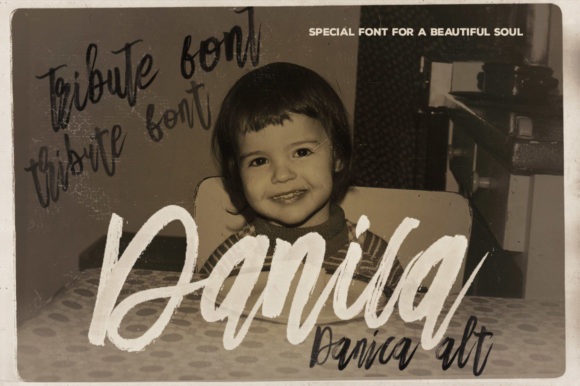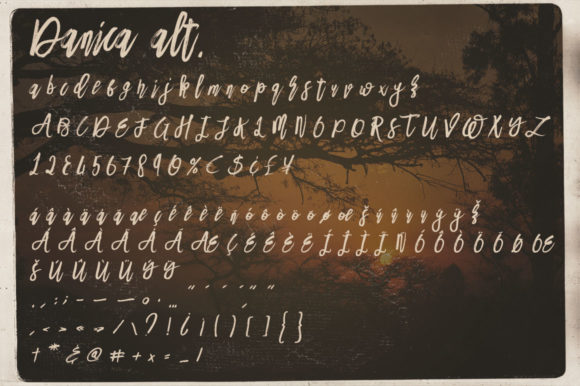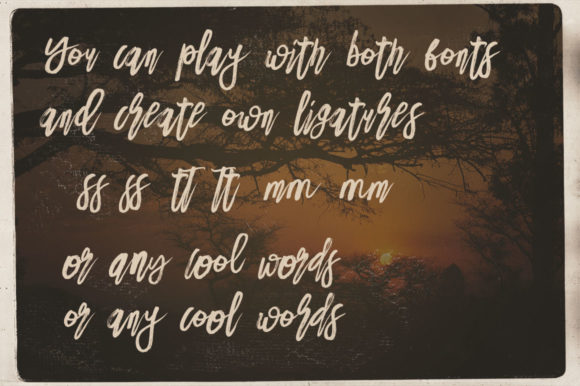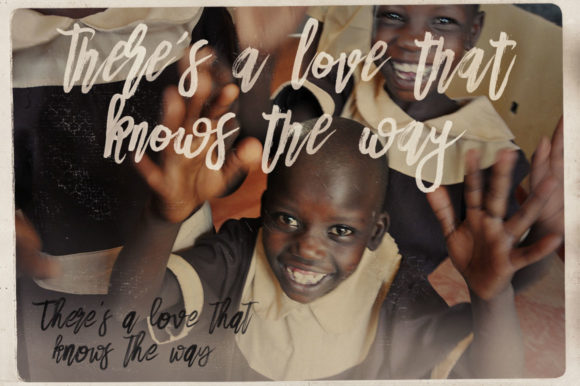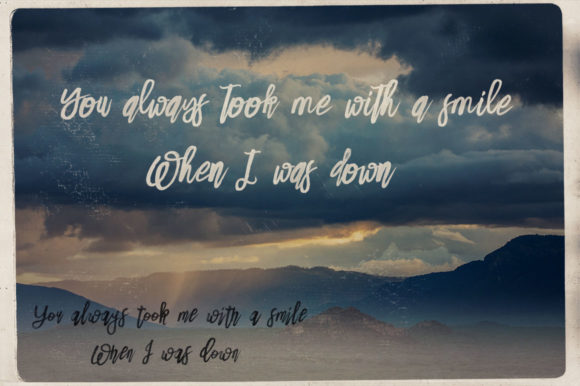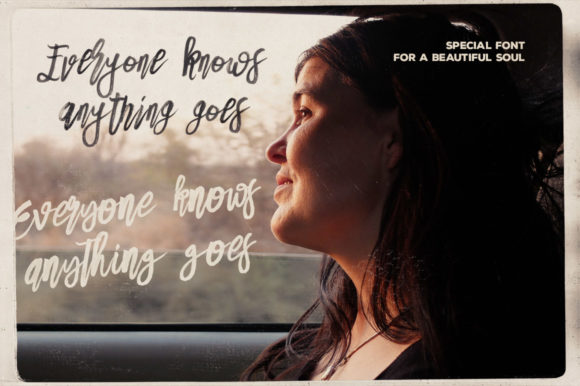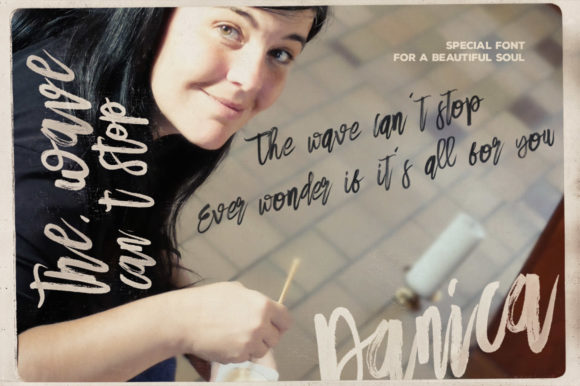
HomeScript FontsDanica Font Script Fonts Danica Font FacebookXPinterestWhatsApp Danica Font Poster 2 Danica Font Poster 3 Danica Font Poster 4 Danica Font Poster 5 Danica Font Poster 6 Danica Font Poster 7 Danica Font Poster 8 Danica Font Poster 9 Danica Font Poster 10 Danica Font Poster 11 Danica Font Poster 12 Danica Font Poster 13 Danica Font Poster 14 About Danica Font Danica is a abold and beautiful handwritten font with a cool feel. It will turn any design project into a standout! DOWNLOAD ON CREATIVE FABRICAThis font is sold and delivered by Creative Fabrica. Font Canyon may earn a commission if you buy through this link. People also explored Kid Dark Grey Heather Bella Canvas 3001T Sanggula Font Riponlight Font Chic Cat Font Park Twokey Month Font Herios Font Maudy Font Beatone Font Block Note Font 320 0 TagsDanica Font Previous articleAngelic FontNext articleBuongiorno Rastellino Font LEAVE A REPLY Cancel reply Comment: Please enter your comment! Name:* Please enter your name here Email:* You have entered an incorrect email address! Please enter your email address here Website: Save my name, email, and website in this browser for the next time I comment. Personal Use Free Zeshane Personal Use Free Read more about this font Krase Personal Use Free Read more about this font Braindly Personal Use Free Read more about this font Little Pixel Personal Use Free Read more about this font BLOG How to Install and Use Fonts on Windows, macOS, and Web Projects How to Install and Use Fonts on Windows, macOS, and Web Projects Fonts are a crucial part of design and branding. Whether you’re designing a... Fonts That Capture the Spirit of New York City Top 7 Google Fonts Alternatives for Faster and Privacy-Friendly Web Design (2025) Free vs Paid Fonts: Why Investing in Premium Fonts Is Worth It